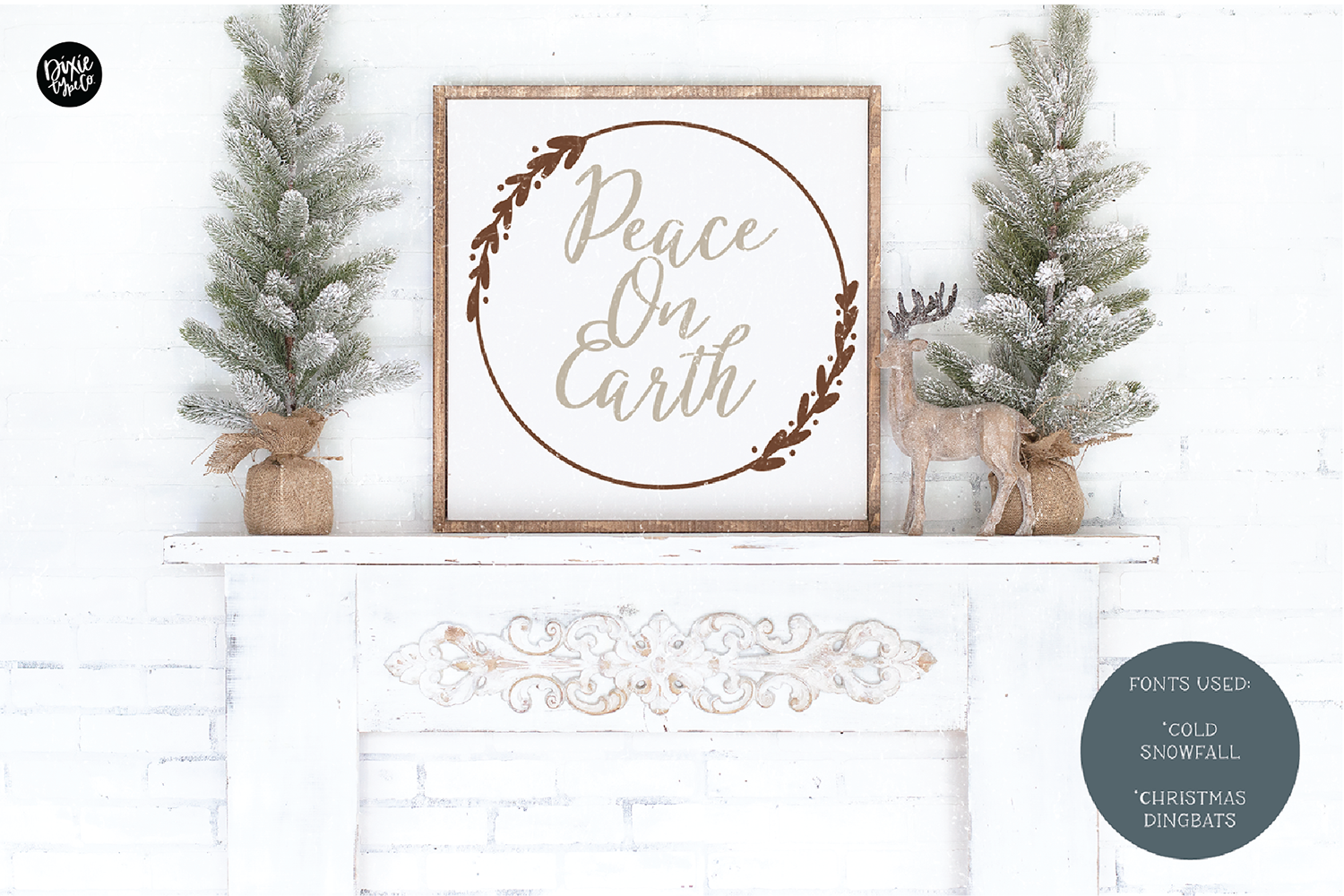
"Cold Snowfall" a pretty winter script font
Cold Snowfall is a vintage script font. This font is great for holiday decor, cards, and farmhouse living